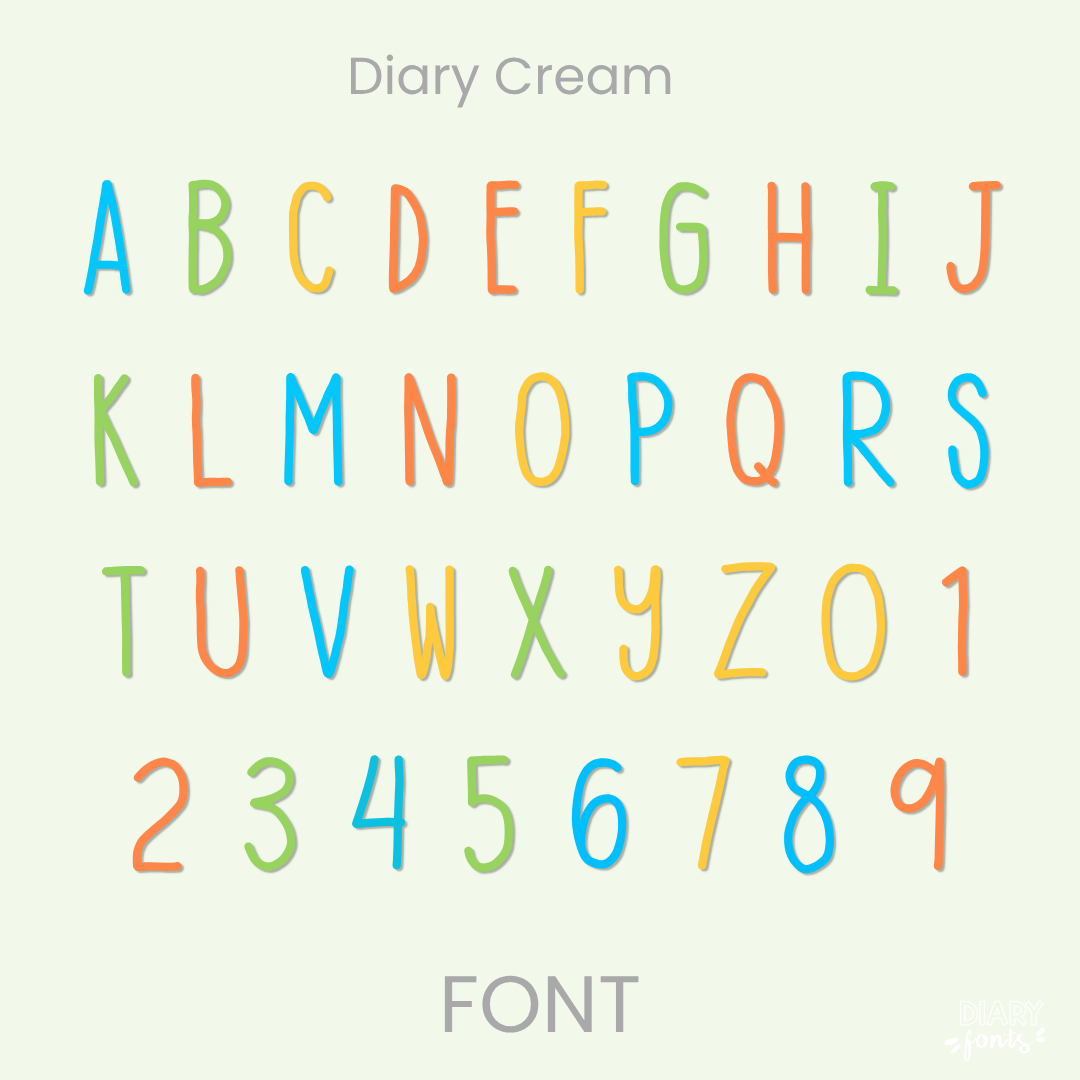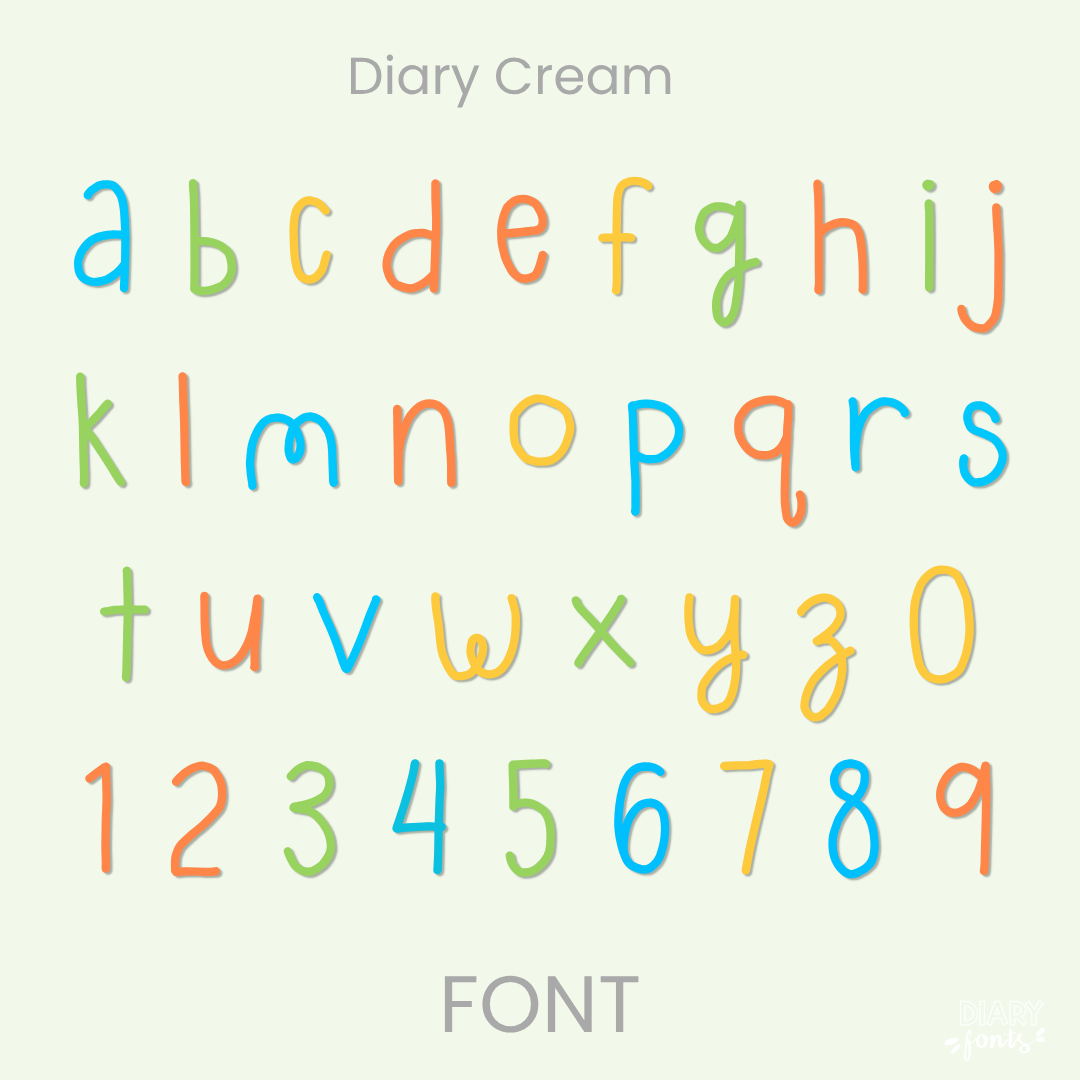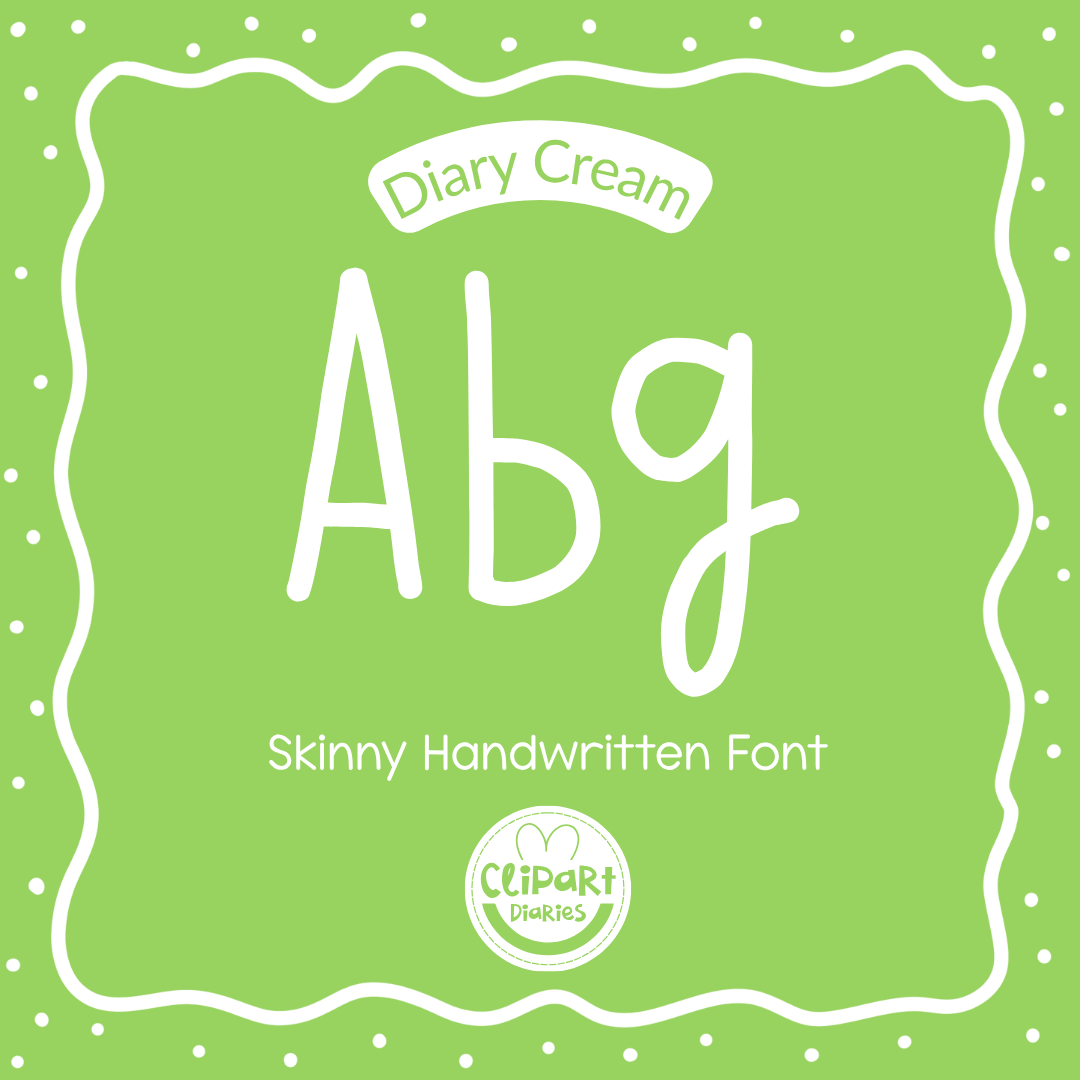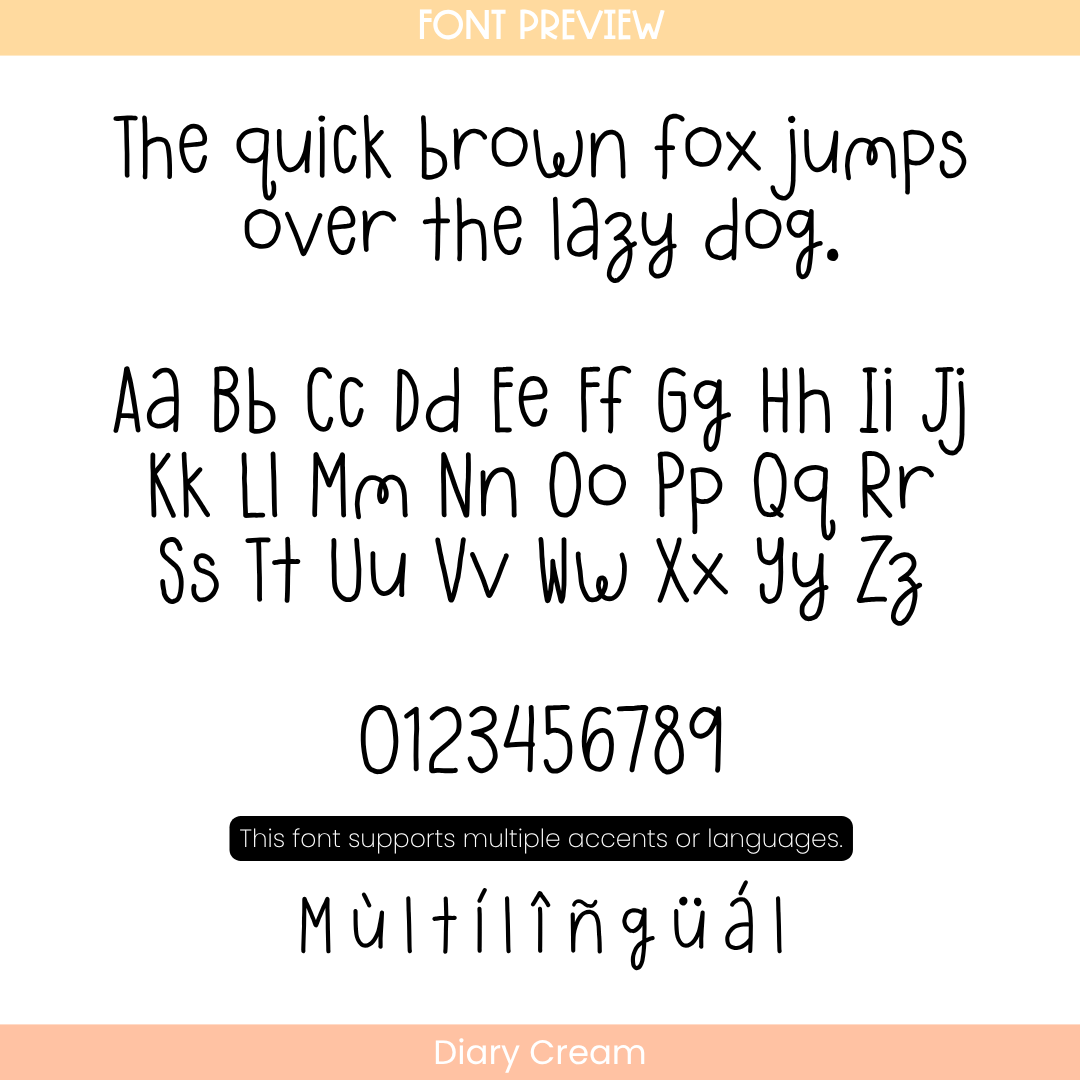
Diary Cream Font
The Diary Cream is a tall, slender handwritten font designed to bring a delicate, clean, and elegant hand-crafted feel to your digital resources and classroom materials.
If you want to give your projects a cheerful and friendly look, Diary Cream is an excellent choice. It features thin, elongated handwritten characters that mimic a neat and graceful lettering style while remaining perfectly easy to read. This makes it highly legible for students while still feeling playful. It is especially effective for bold headers, classroom labels, and primary school resources. The font includes a full set of uppercase and lowercase letters, numbers, and multiple accents to support different languages. It is ready for use in Canva, MS Office, and Adobe Apps, and it works perfectly with iPad apps like GoodNotes and Procreate. Whether for personal classroom use or commercial resources, this font adds a soft and approachable aesthetic to your work.